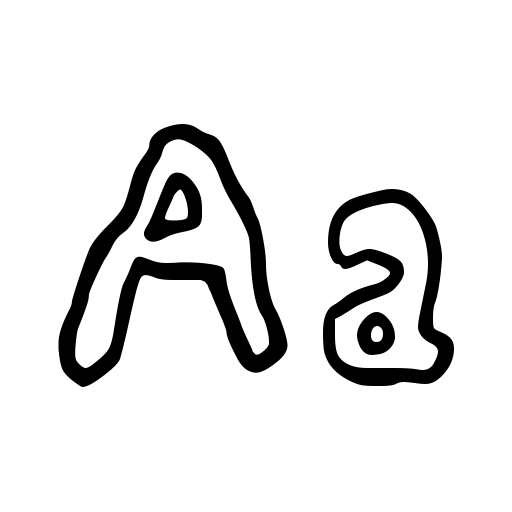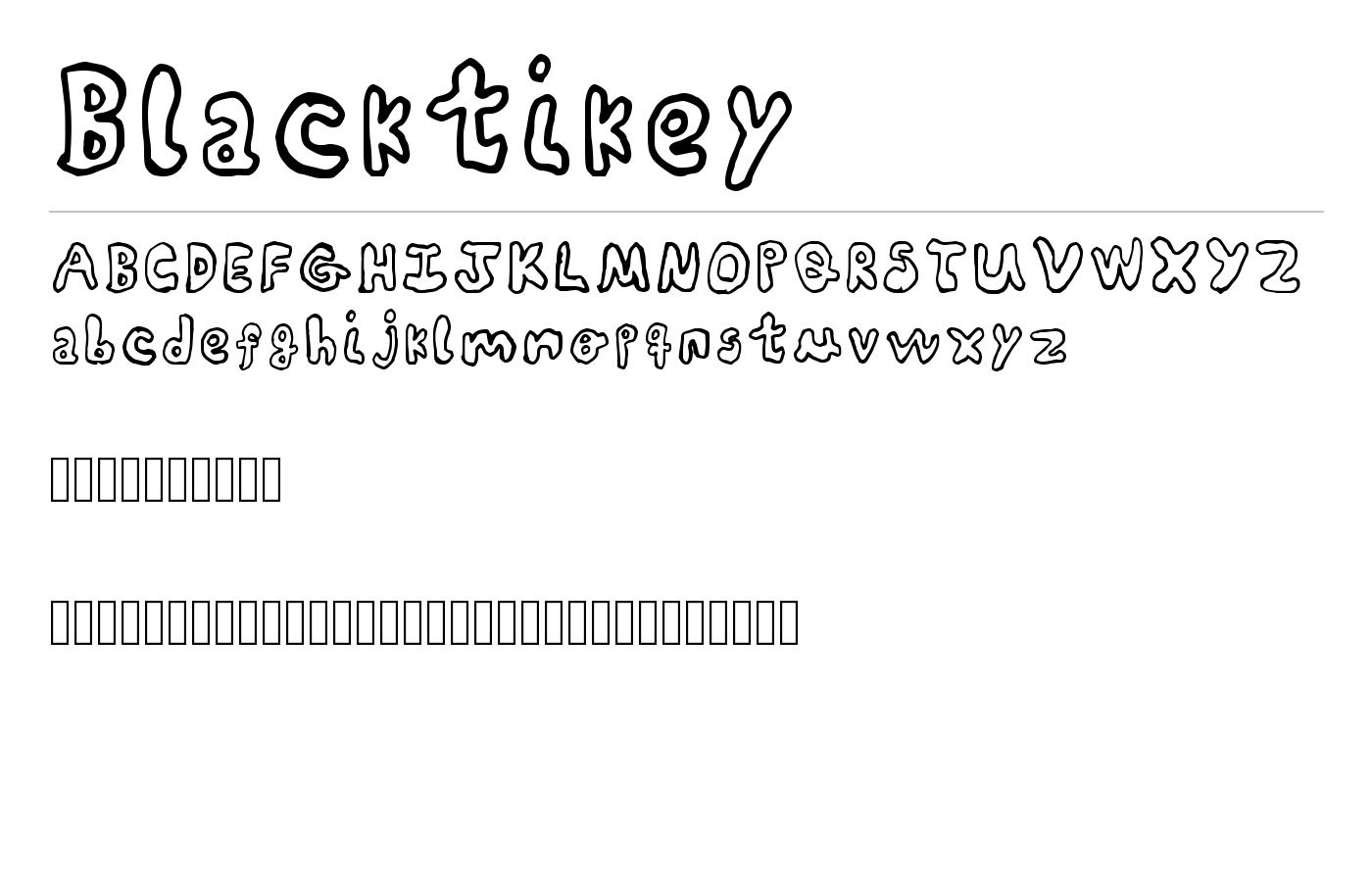
Blacktikey is a playful, hand-drawn sans serif font characterized by irregular, wavy outlines and organic shapes that give it a casual, quirky personality. Its lightweight, uneven strokes and whimsical letterforms make it an ideal choice for creative projects, children’s designs, or informal branding that seeks a fun and approachable vibe. This font works best in headlines, logos, and packaging where a distinctive, friendly touch is desired.
Blacktikey Font
About Blacktikey Font